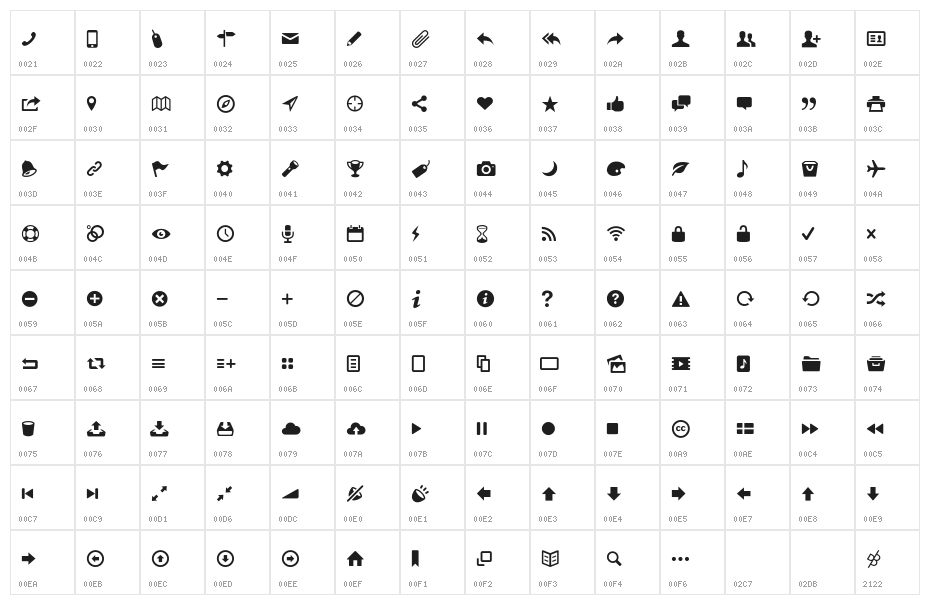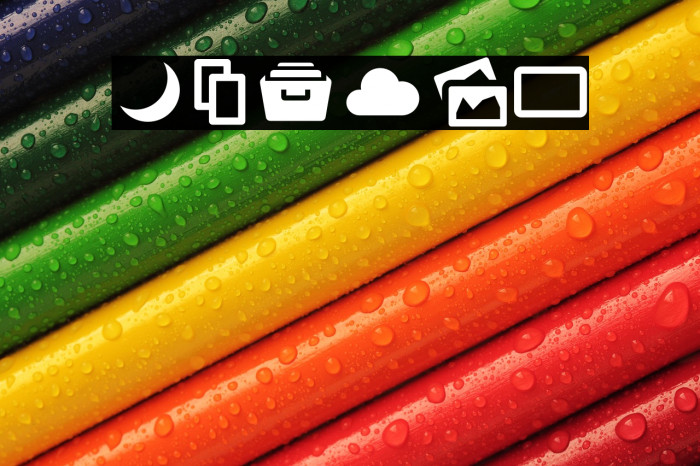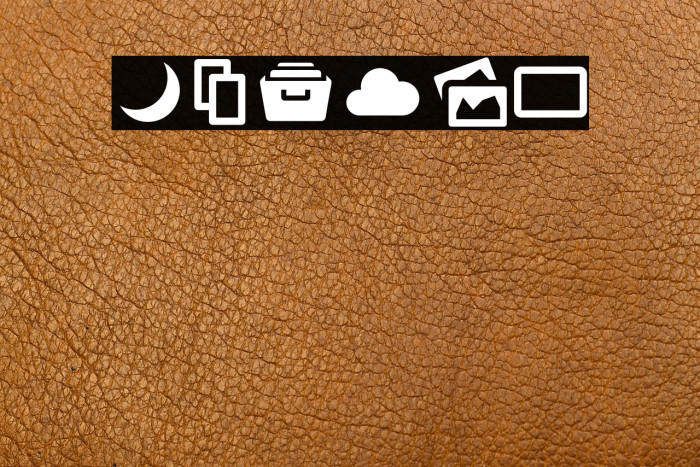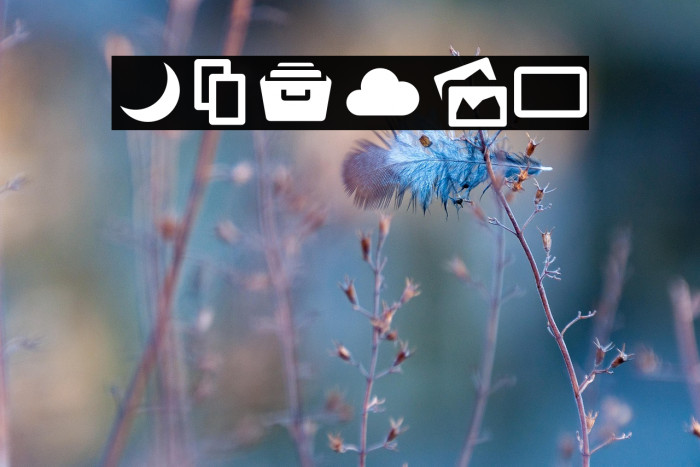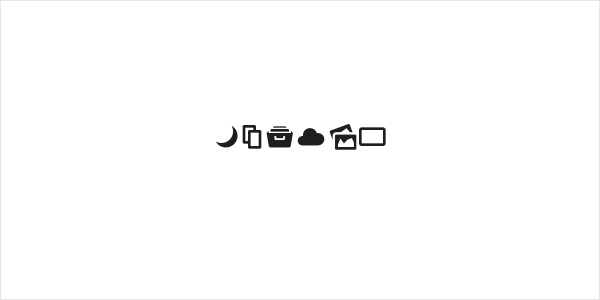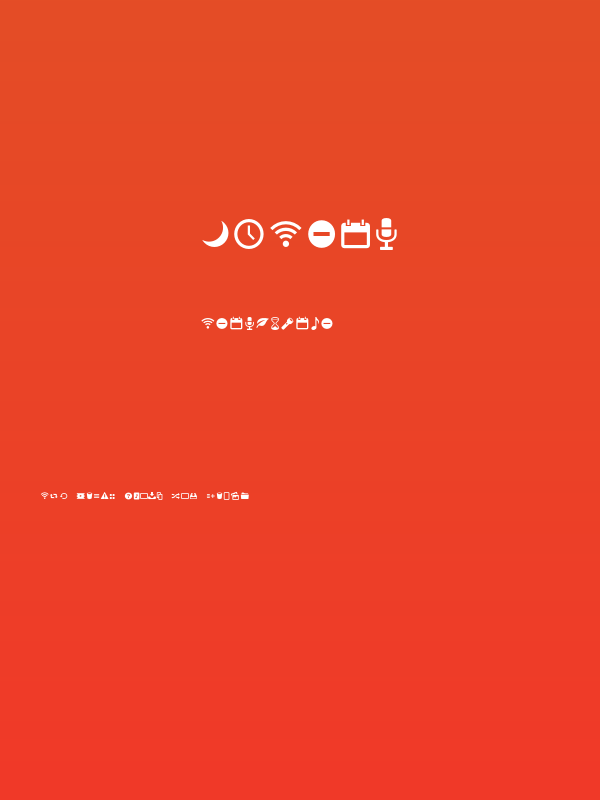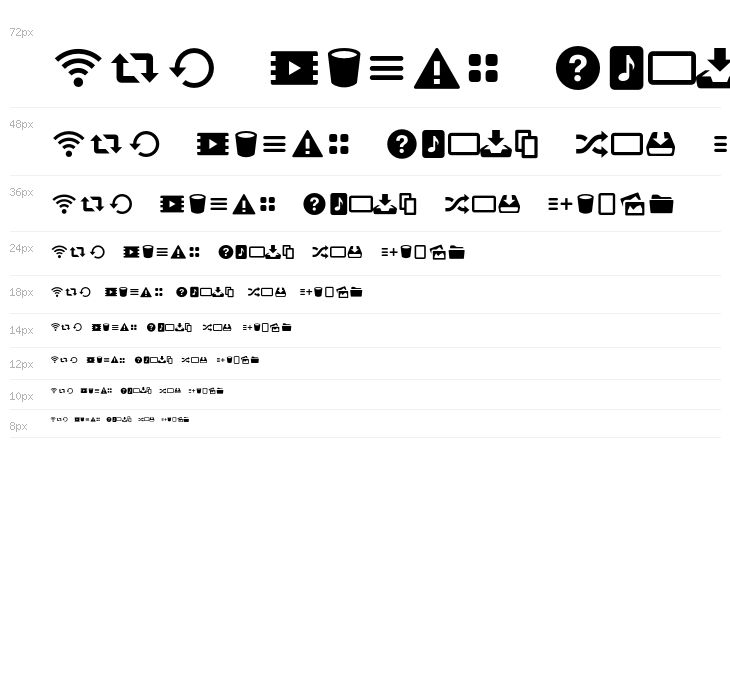
Entypo Font
Entypo Description
A set of simple, geometric, and highly recognizable pictographic icons with consistent stroke weight and rounded corners, designed for clear legibility at small sizes.
| Overall Style | Modern, Minimalist |
| Use Case | Icons, UI elements, navigation, buttons |
| Proposed Projects | Mobile apps, web interfaces, UI/UX design, infographics, signage. |